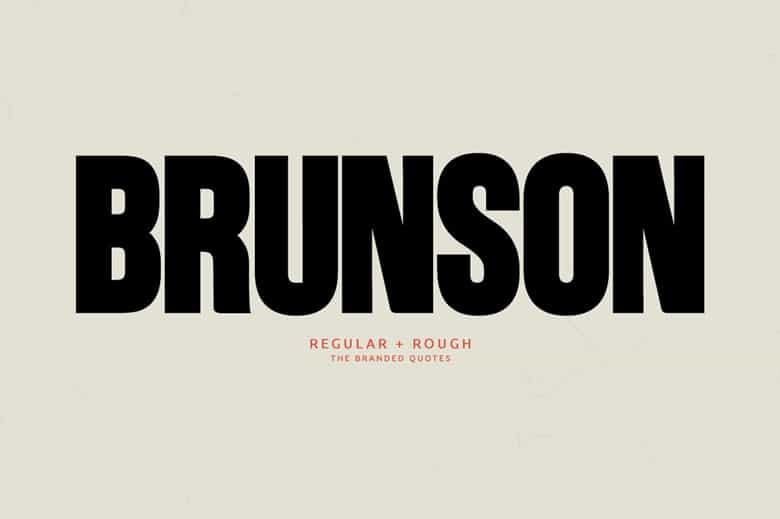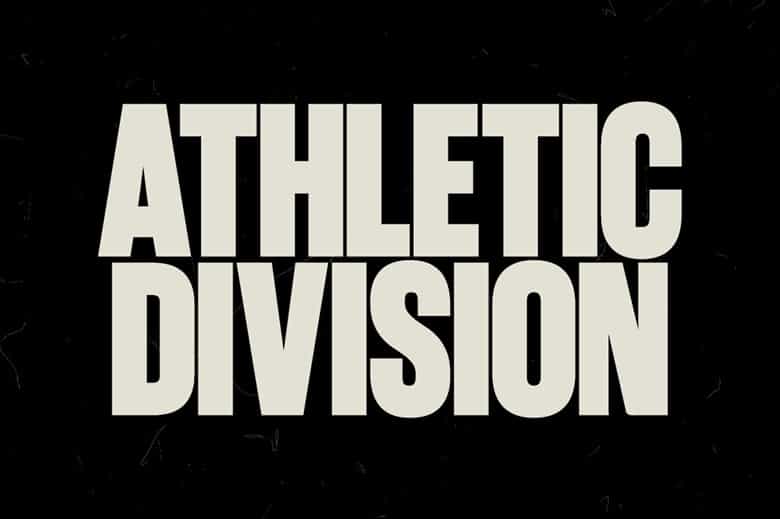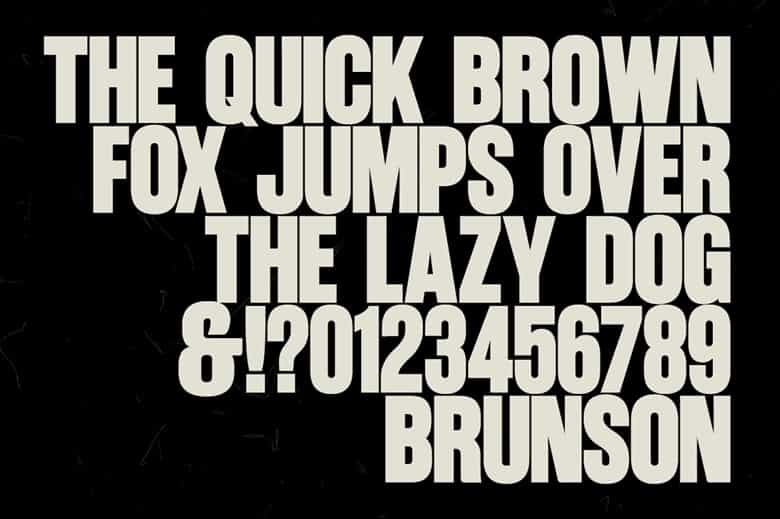
Discover Brunson Font, part of the Sans Serif collection—a versatile and unique font perfect for adding a personal touch to your projects. Download it for free and enjoy crafting designs with style, from invitations to social media posts. This font is available exclusively for personal use, giving you the freedom to create without limits. Unlock your creativity with Brunson Font today!
Brunson Font is a super loud sans serif to make use of in different applications. Brunson Regular and Brunson rough are two different styles. The two fonts are excellent fonts to use in headlines, titles of movies, revolutionary posters, and digital banners as well as album covers.